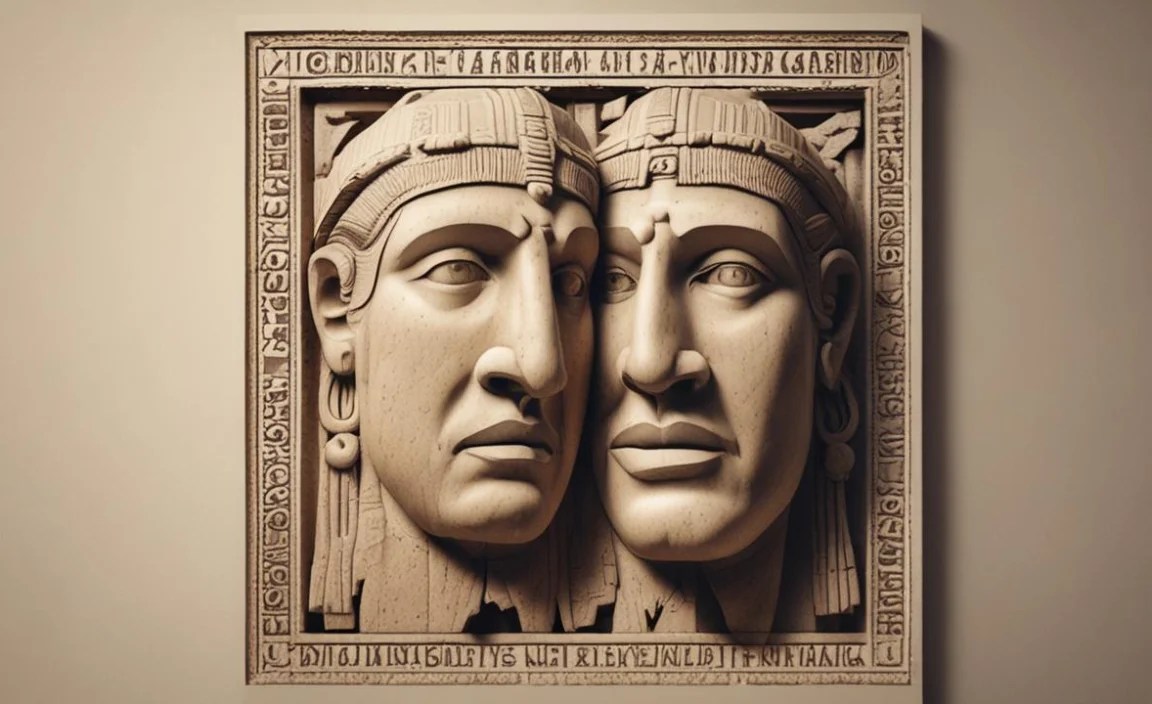
Typography in ancient civilizations laid the groundwork for all modern text design. Understanding these early principles—like clarity, permanence, and hierarchy—still informs essential typography that enhances readability and visual appeal today. These foundational concepts are surprisingly relevant for contemporary designers.
Ever looked at an ancient inscription and wondered how they managed to make it so clear, thousands of years ago? It feels like a mystery, right? Typography, the art of arranging type, didn’t just pop up with computers. It has deep roots in the very first civilizations. These ancient folks were masters at making their marks last and be understood. Learning from them can seriously level up your own design game. We’ll unearth some timeless secrets from history’s best typographers, making your own projects more impactful and readable. Ready to unlock lessons from the past?
Why Ancient Typography Matters Today
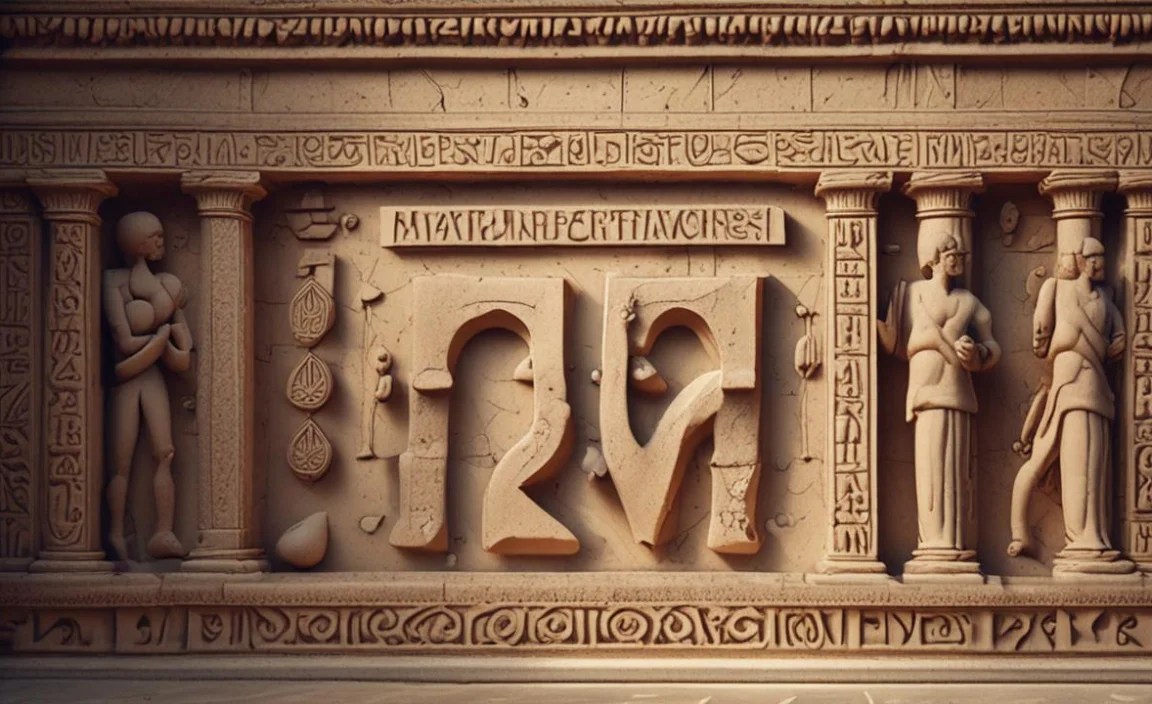
It might seem strange to talk about ancient typography when we’re surrounded by sleek digital fonts. But believe me, the core ideas are still incredibly relevant! Ancient civilizations were driven by serious needs: recording history, communicating laws, and honoring their gods. This meant their writing had to be clear, durable, and respected.
Think about the hieroglyphs of Egypt or the letters of the Roman Empire. These weren’t just scribbles; they were carefully crafted symbols. They needed to be carved into stone, painted on walls, or inscribed on clay tablets. This physical reality forced a focus on legibility, form, and the visual impact of each character. The principles they developed are still the bedrock of good design: ensuring text is easy to read, visually pleasing, and carries the right message.
The Dawn of Writing and Its Typographical Roots
Our journey into typography begins long before paper and keyboards. It starts with the very first attempts humans made to record information visually. These early systems were often pictorial, relying on images to represent words or ideas.
Pictograms and Ideograms: The Visual Beginnings
Imagine drawing a picture of a sun to mean “sun.” That’s a pictogram! It’s a direct representation of an object. As societies became more complex, they needed ways to represent abstract ideas, too. This led to ideograms, where a symbol might represent a concept, like an eye and a wavy line meaning “to see” or “water.”
While not “typography” in our technical sense, these early systems were the crucial first steps. They began the long process of standardizing visual symbols for communication. The clarity and distinctiveness of these early symbols were paramount. Each mark needed to be recognizable to a wide group of people.
The Birth of Alphabets: A Revolution in Communication
The real game-changer for typography was the invention of alphabets. Instead of a symbol for every word or idea, alphabets use a limited set of symbols (letters) to represent sounds. This made writing and reading vastly more accessible.
The Proto-Sinaitic script, appearing around the 19th century BCE, is often considered one of the earliest known alphabetic scripts. It evolved from Egyptian hieroglyphs but used symbols to represent consonant sounds. From this, Phoenician, Aramaic, and eventually Greek and Latin alphabets sprung forth. Each step simplified and standardized the forms of letters, making them easier to write and read.
The standardization was key. Imagine if every scribe drew their “A” differently. Communication would break down quickly! Ancient civilizations intentionally refined letterforms to ensure consistency, a core principle still vital in graphic design today.
Mesopotamia: Cuneiform and Early Form
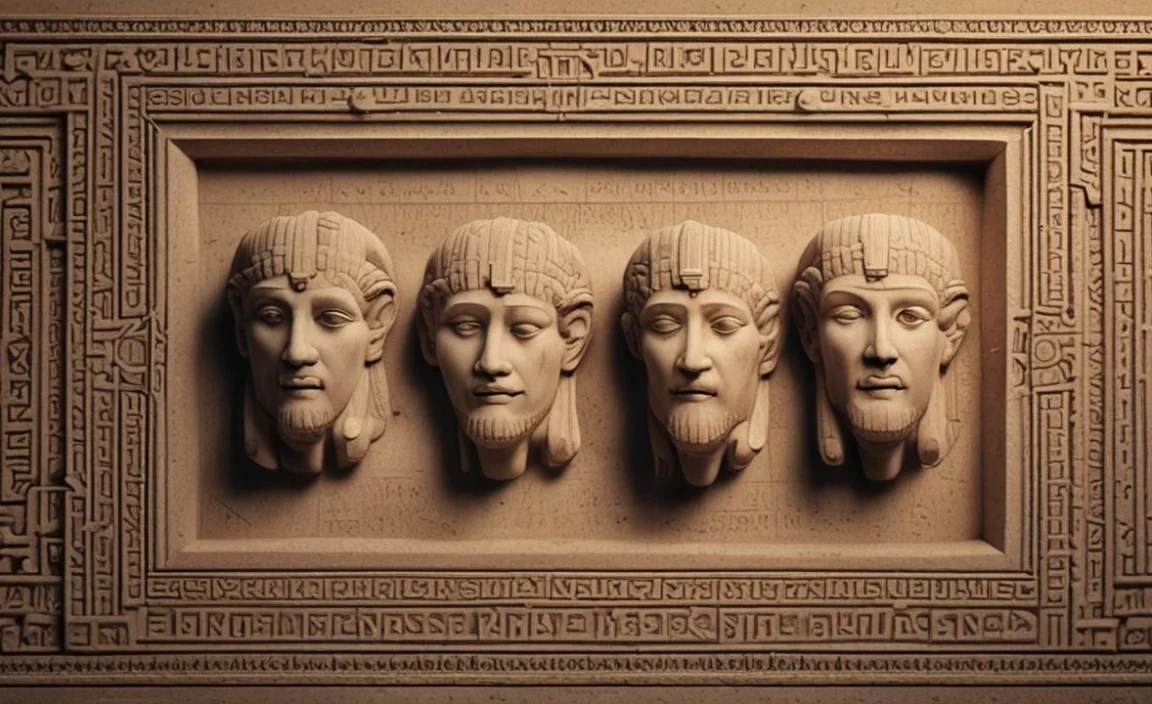
Long before alphabets took hold, Mesopotamia gave us one of the earliest known writing systems: cuneiform. Developed by the Sumerians around 3400–3100 BCE, cuneiform was initially pictographic but evolved into a system of wedge-shaped marks pressed into wet clay tablets.
The Wedge-Shaped Script
Cuneiform wasn’t about delicate curves. The very act of pressing a stylus into clay dictated the form of the script. This resulted in distinctive wedge shapes, which made the marks clear and robust on the durable medium of clay. This constraint, far from being a limitation, led to a unique and recognizable visual style.
The scribes who created these texts were highly skilled. They needed to master the tools (the stylus) and the medium (clay) to produce legible and aesthetically pleasing cuneiform. This focus on the physical act of creation and its impact on form is a powerful lesson for digital designers today, reminding us that the tools and surfaces we use influence the final look.
Typographical Essentials Learned from Cuneiform
Even though it looks alien to us, cuneiform teaches us invaluable lessons:
- Clarity Through Form: The wedge shapes were chosen because they were clear and easy to make in clay. This emphasizes how the intended medium and tools can shape legible forms.
5. The Enduring Power of Shape and Balance
Even functional ancient scripts possessed an inherent aesthetic quality. Roman capitals, in particular, showcase a mastery of proportion and balance that still captivates us.
For you: Pay attention to the visual appeal of your chosen fonts. How do the letterforms look together? Understanding basic principles of visual balance can elevate your designs significantly. Good fonts have been designed with centuries of aesthetic refinement behind them.